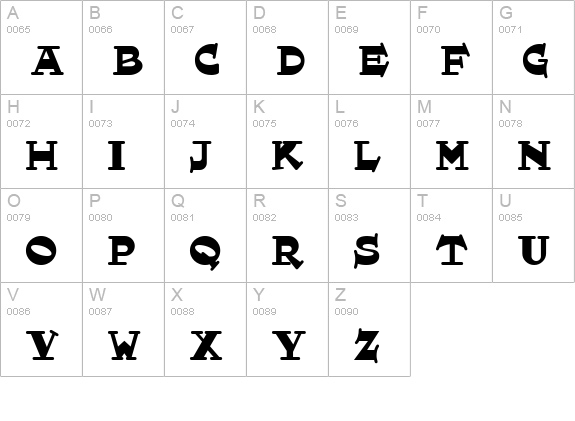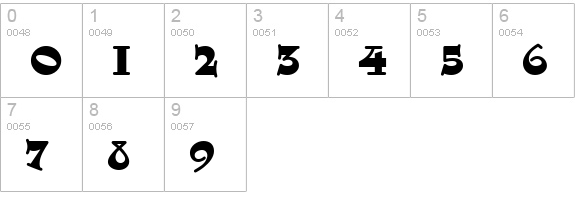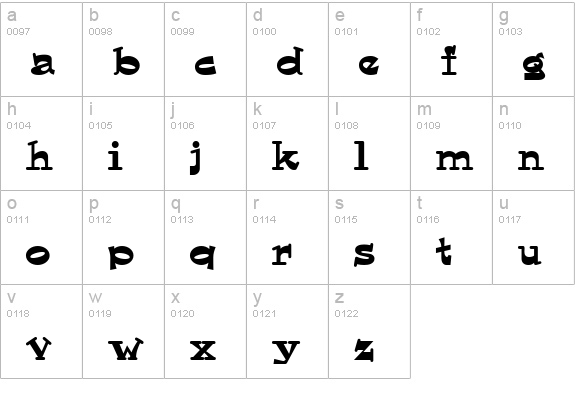
Hornswoggled NF font is a charming and whimsical typeface that exudes a playful and energetic vibe. With its unique and quirky design, this font is perfect for adding a touch of fun to any project. The slightly irregular lines and playful curves give it a hand-drawn feel that is both endearing and eye-catching. Best of all, Hornswoggled NF font is completely free to download at FontsMarket.com. Whether you're working on a creative project, designing a logo, or just looking to add some personality to your text, this font is a fantastic choice. Embrace the whimsy and creativity of Hornswoggled NF font and bring your designs to life with this delightful typeface.